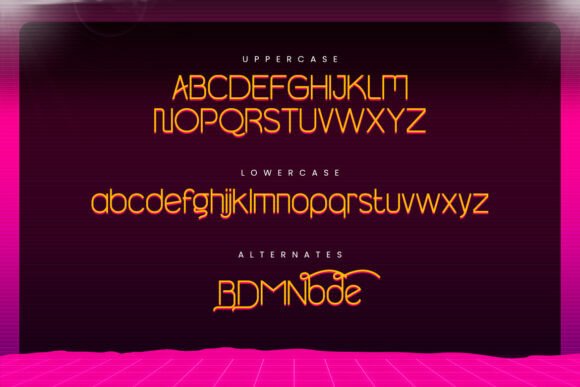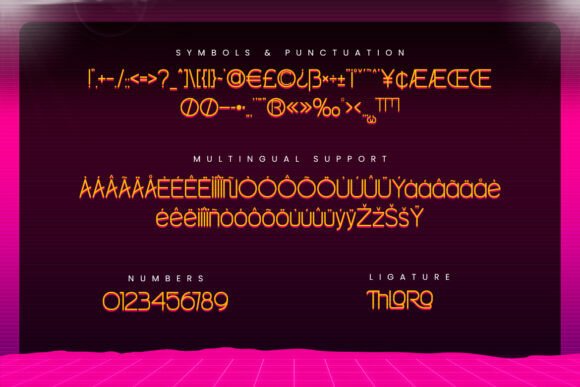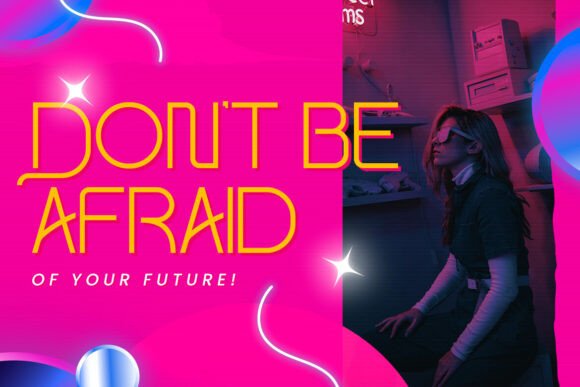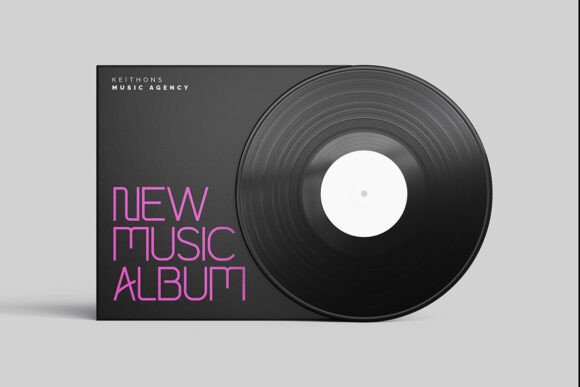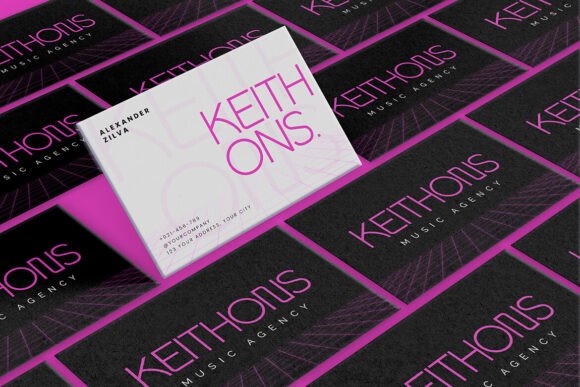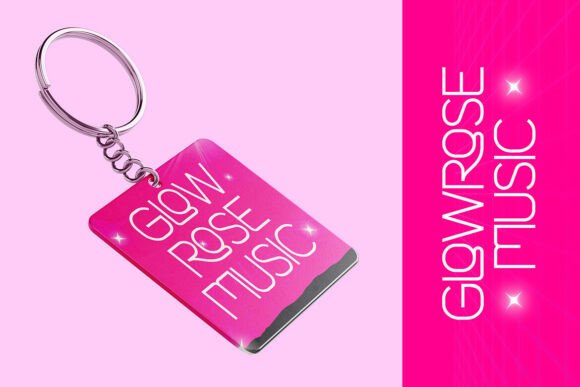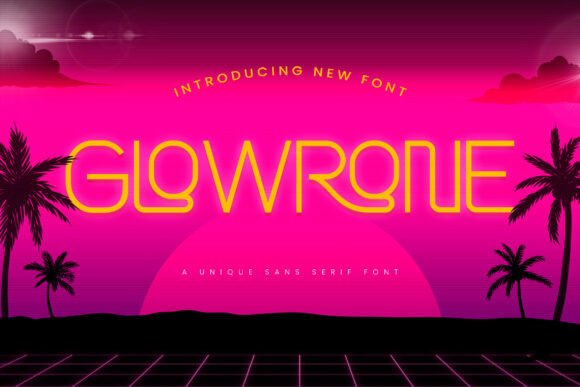
Introducing Glowrone Font: The Epitome of Modern Sophistication
In the realm of typography, fonts play a pivotal role in defining the visual identity of a brand, product, or creative project. Among the myriad of fonts available, Glowrone stands out as a beacon of modern sophistication, blending contemporary minimalism with a unique charm that is hard to overlook. This striking sans serif font is not just a typeface; it’s an experience, designed to elevate your designs to unprecedented heights of elegance and appeal.
The Distinctive Features of Glowrone
Glowrone’s design is characterized by clean, fluid lines that traverse its structure with grace and precision. However, what truly sets it apart are the discreet, unexpected nuances woven into its design. These subtle touches add a layer of complexity and interest, preventing the font from feeling too sterile or conventional. This blend of simplicity and intrigue makes Glowrone a versatile tool, capable of adapting to a wide range of design needs.
A Prime Choice for Modern Projects
Whether you’re crafting a logo, developing a brand’s visual identity, designing a website, or working on an editorial layout, Glowrone proves to be a prime choice. Its adept versatility ensures that it can command attention and convey messages with clarity and style. The font’s modern aesthetic, coupled with its unique charm, ensures that your projects stand out in a crowded digital landscape.
Applications of Glowrone
The applications of Glowrone are vast and varied. Here are a few areas where Glowrone can make a significant impact:
• Logos and Branding: Glowrone’s distinctive style makes it an excellent choice for logos and branding. Its unique blend of modernity and charm can help brands establish a strong and memorable visual identity.
• Website Designs: For web designers, Glowrone offers a clean and contemporary look that can enhance the user experience. Its readability on digital screens makes it a practical choice for website headings, titles, and key messages.
• Editorial Layouts: In editorial design, Glowrone can add a touch of sophistication and elegance. Its fluid lines and subtle nuances make it suitable for magazine titles, article headings, and other editorial content.
Crafting Sleek yet Memorable Creations
The distinct persona of Glowrone is not just about aesthetics; it’s about creating an impact. This font is designed to help you craft sleek yet memorable creations that resonate with your audience. Whether you’re a designer looking to elevate your portfolio or a craftsperson aiming to add a professional touch to your projects, Glowrone serves as a modern obsidian tool.
Why Choose Glowrone?
Choosing Glowrone for your design projects comes with several benefits:
• Modern Elegance: Glowrone brings a breath of modern elegance to your designs, setting them apart from the ordinary.
• Versatility: Its adaptability across various design applications makes Glowrone a valuable addition to any designer’s toolkit.
• Memorability: The unique charm of Glowrone helps in creating memorable visual identities that linger in the minds of the audience.
Font Name Glowrone Font
Author TypeFactory
Glowrone is more than just a font; it’s a statement of modern sophistication and creativity. Its distinctive blend of clean lines, fluidity, and subtle nuances positions it as a prime choice for designers and crafters seeking to revolutionize their designs. With Glowrone, you’re not just choosing a typeface; you’re embracing a design philosophy that speaks of elegance, versatility, and memorability. Whether you’re looking to make a bold statement or add a touch of sophistication to your projects, Glowrone is poised to be your modern obsidian tool, helping you craft designs that are not only visually stunning but also deeply impactful.